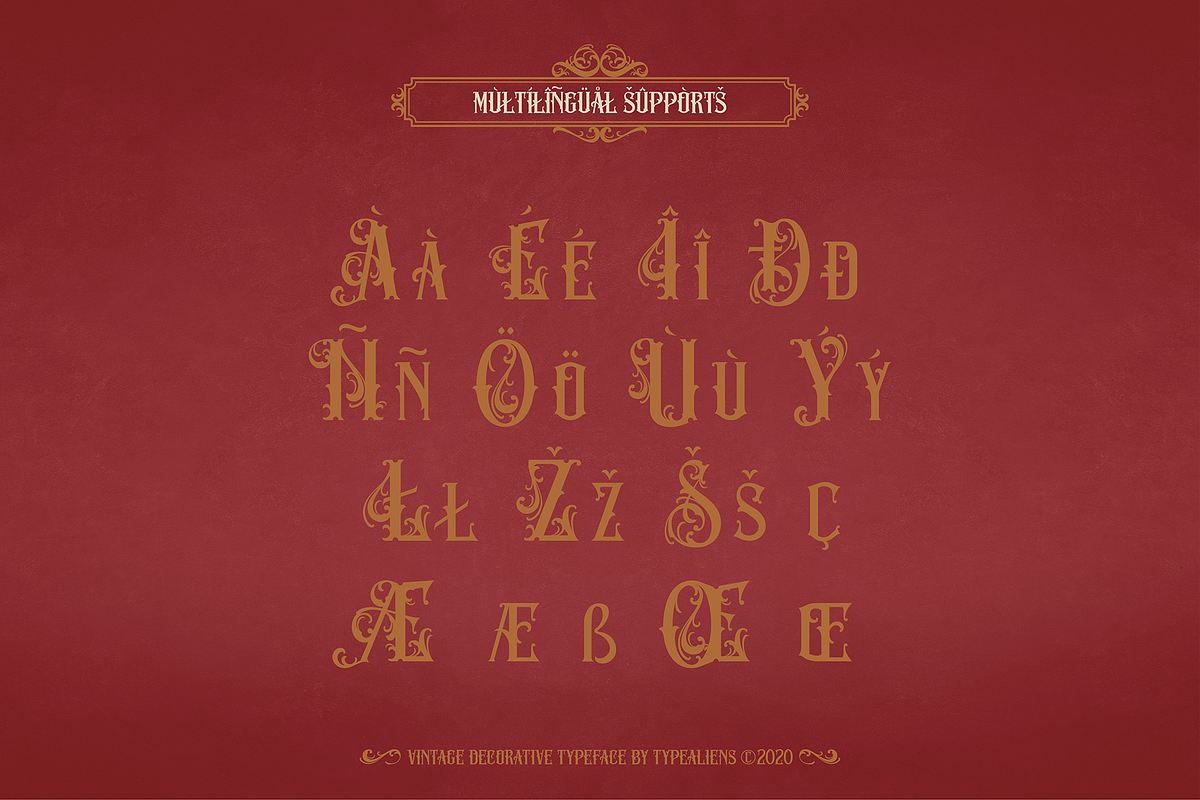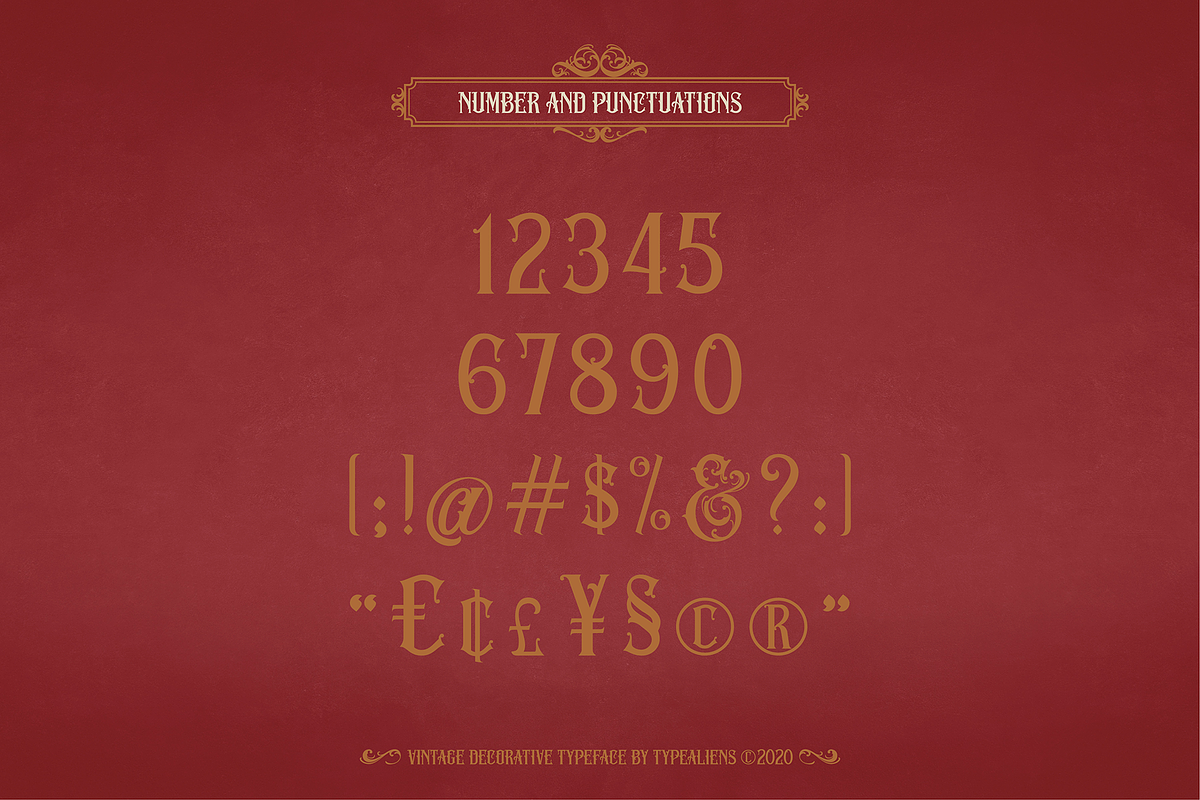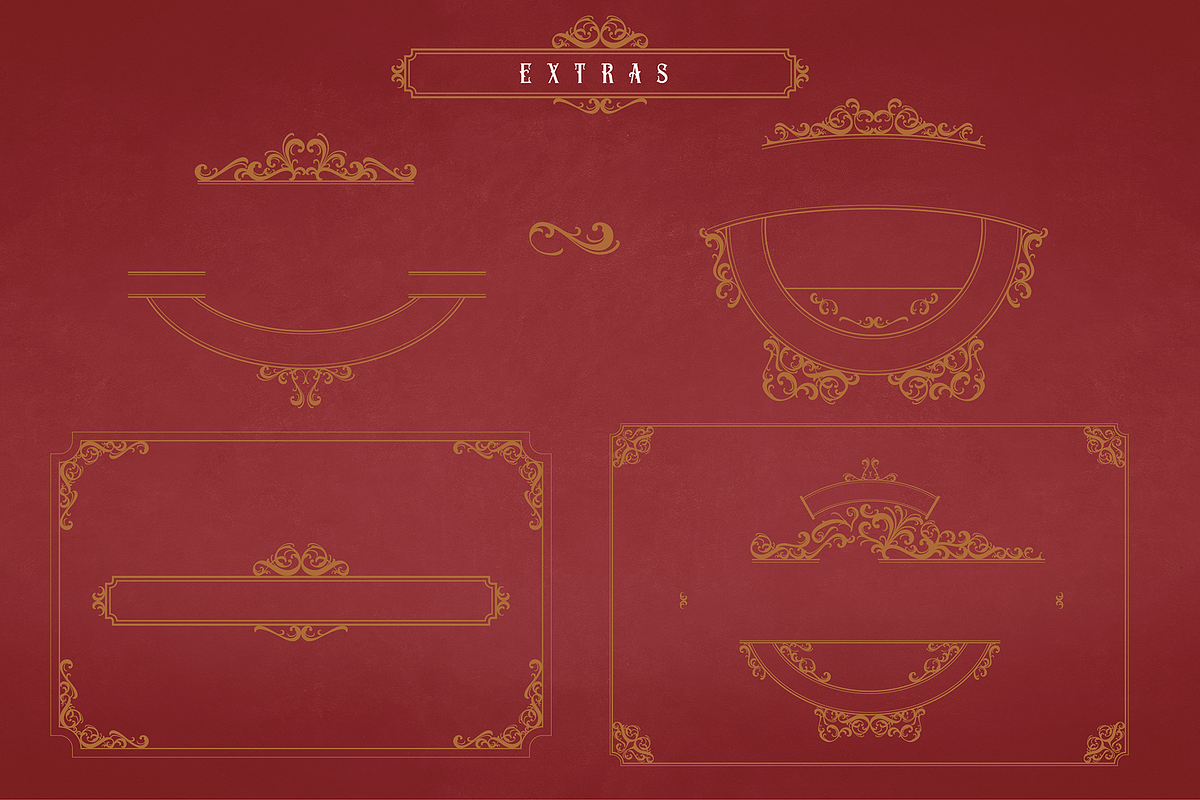
Ved Relret
VED RELRET is a decorative font for display. The inherent ornament element makes this font suitable for display, such as badge design, logo badge, logotype, liquor label design, beer label design, t-shirt design etc.